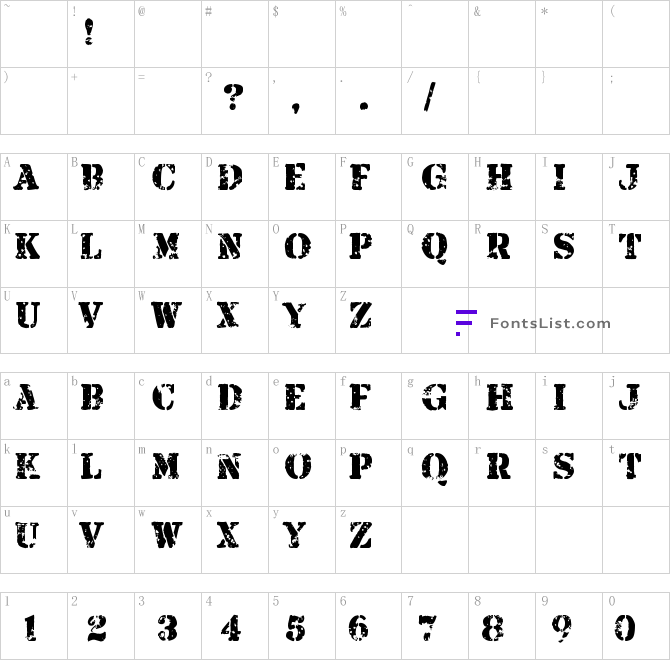
- Font Name:Armalite Rifle
Armalite-Rifle-copy-2-.ttf is a very beautiful artistic font, Armalite-Rifle-copy-2-.ttf is widely used in the design and printing of various books and pictures,Armalite-Rifle-copy-2-.ttf has a strong visual impact,Armalite-Rifle-copy-2-.ttf is a commonly used font in newspapers, magazines and books, and is used in posters, e-commerce Poster design, store design, logo design, font design and other fields.Armalite-Rifle-copy-2-.